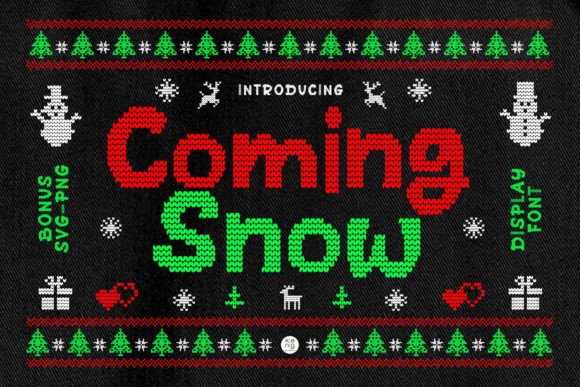
Choosing Coming Snow for Editorial Storytelling
The blank canvas of a new project is always a quiet thrill. This time, it was a seasonal recipe ebook for my cooking blog. I had the content, the photos, a clear vision of a warm, handcrafted aesthetic, and one missing piece: the title font. The cover needed to whisper "winter" and "homemade" before anyone even opened the PDF. That’s when I discovered Coming Snow Font. It was the final, perfect piece of the puzzle, and my journey with it revealed just how much a thoughtful display font can shape an entire editorial experience.
The Embroidered Character of Coming Snow
When you first apply Coming Snow to a headline, its personality unfolds immediately. This isn’t a loud, ostentatious font. It’s calm, refined, and carries a story in every glyph. The description notes its "stylish embroidery," and that’s precisely the feeling it evokes—each letter appears delicately stitched, as if crafted by hand with careful thread. This gives the font a tactile, organic quality that feels both nostalgic and fresh. For my recipe ebook, that embroidered texture suggested the care and craftsmanship of baking, of handwritten notes passed down through generations. The mood it sets is one of quiet celebration and thoughtful detail, which is exactly the tone I wanted my publication to carry.
Coming Snow for Recipe Ebooks and Cookbook Layouts
Applying Coming Snow to my ebook’s structure was a lesson in visual hierarchy. As a display font, its strength lies in demarcation and emphasis. I used it exclusively for the main title on the cover, for chapter opener headings like "Holiday Breads & Pastries," and for pull quotes highlighting a special tip within a recipe. It never entered the body copy—that was reserved for a legible serif—but its presence at these key points created a consistent and inviting rhythm. Readers knew, subliminally, that when they saw the embroidered letters of Coming Snow, they were at a moment of importance: the start of a new section, the name of a beloved dish, a chef’s secret. This is how a font supports readability; it guides the eye and organizes content without a single line rule or box.
Building Visual Hierarchy with Display Fonts
The role of a display font like Coming Snow in editorial design is to anchor the reader’s attention. In a long-form digital magazine article about winter traditions, I might use it for the feature headline and then perhaps for the styled subtitle. In a printable wedding planning guide, it could grace the cover and the headers for major sections like "Ceremony Details" or "Guest Welcome." Its decorative nature means it performs best in short bursts—titles, subtitles, pull quotes, logos, and section headings. It’s not designed for paragraphs, and respecting that boundary is key to a professional layout. When you pair Coming Snow with a simple, highly-readable sans-serif for body text and captions, you create a clean, sophisticated contrast that feels both special and easy to navigate.
Coming Snow for Newsletter Headers and Blog Title Graphics
Beyond static publications, Coming Snow breathes life into recurring content. For my weekly newsletter, designing a new header graphic for the holiday series was effortless with this font. The embroidered letters conveyed a sense of curated, personal communication, turning a simple email header into a branded artifact. For a lifestyle blog, using Coming Snow for featured post titles or in the blog’s logo itself can instantly elevate the entire site’s identity. It signals to readers that the content within is considered, crafted, and worth their time. This application extends perfectly to social media graphics for promoting that blog or ebook, creating a cohesive look across platforms.
Readability Considerations for Digital and Print
Whenever you introduce a decorative font into a design, testing its readability across mediums is a crucial step. With Coming Snow, I exported my recipe ebook PDF and checked it on screens, tablets, and as a physical print proof. At the sizes I used for headers—generally above 30 points—the embroidery details remained clear and charming without blurring or becoming a visual distraction on mobile. For print, like on cards or printable planner covers as mentioned in its description, the texture adds a wonderful physical depth. It’s always wise to test your specific use case, especially for smaller text in logos or on items like bag tags, to ensure the design remains legible and effective.
Practical Font Pairing for Editorial Projects
A display font rarely lives alone in a design. Its success hinges on a strong partnership with your text fonts. For my projects, I paired Coming Snow with a classic, medium-weight serif for body copy in the ebook and a clean, geometric sans-serif for metadata and captions. This trio created a balanced typographic system: the serif offered warm readability for long passages, the sans-serif provided neutral clarity for fine details, and Coming Snow served as the decorative anchor, adding all the personality. This approach works for a multitude of editorial formats—digital magazines, coaching workbooks, course PDFs, and feature articles all benefit from this hierarchy.
My experiment with Coming Snow started with a simple ebook cover but unfolded into a broader appreciation for how typeface choice is a foundational design decision. It’s not merely about aesthetics; it’s about constructing a reading environment. This particular font, with its embroidered, storybook quality, became the silent narrator of my winter recipe collection. It set the mood, organized the content, and gave the entire publication a cohesive, handcrafted voice. For any creator looking to imbue their blog headers, editorial features, printable guides, or digital magazines with a sense of calm, refined celebration, Coming Snow offers a beautiful and effective path. It turns a functional choice into a storytelling one.